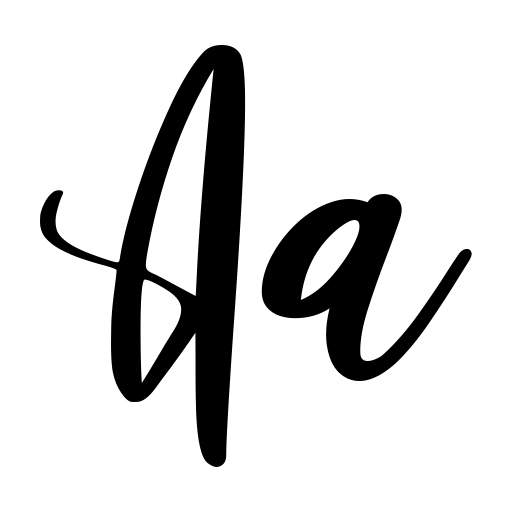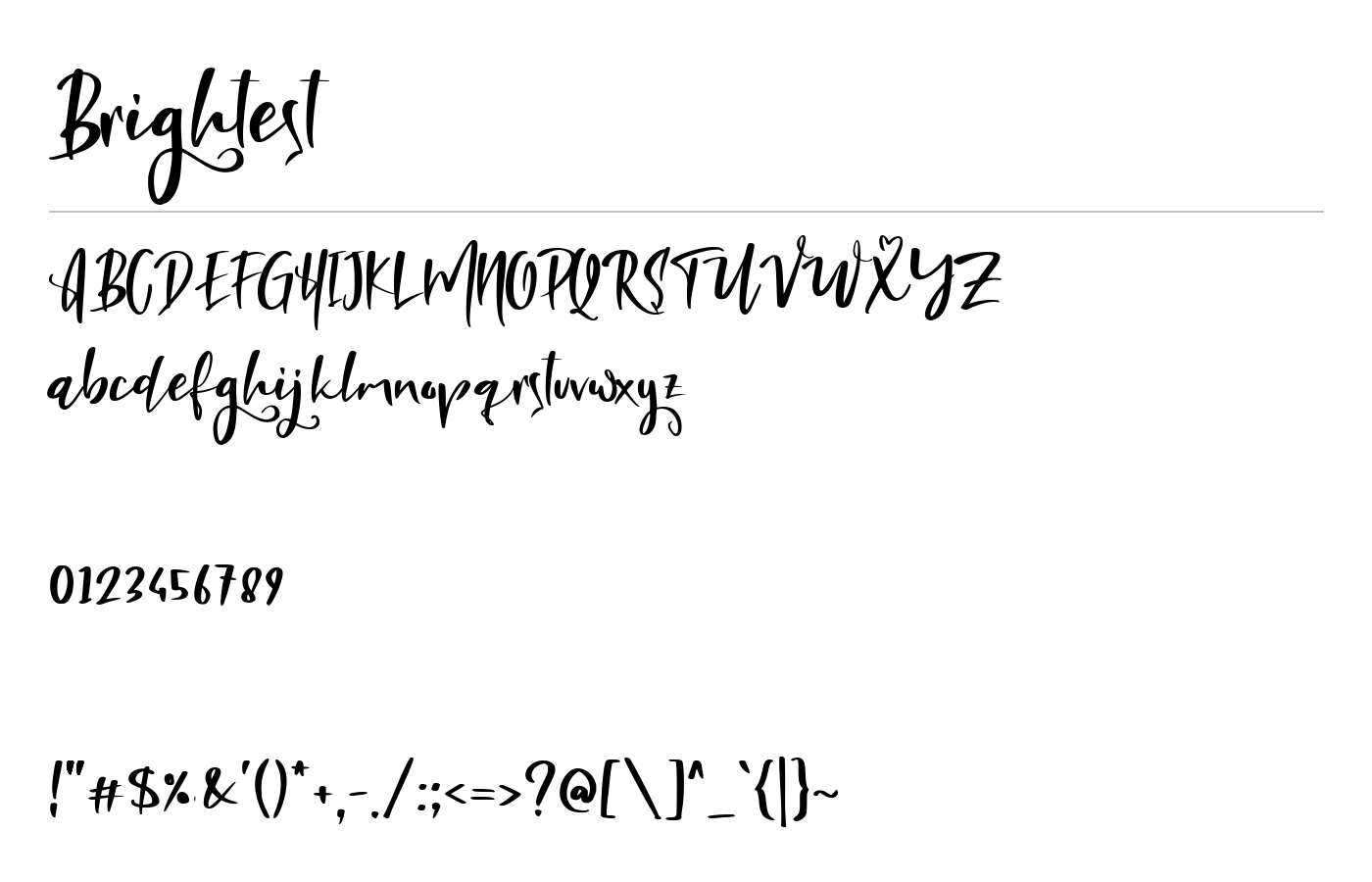
Brightest Font is a lively and modern script font featuring tall, narrow letterforms with playful swashes and unique flourishes that bring a handwritten charm. Its dynamic, casual style with medium contrast strokes makes it perfect for creative branding, invitations, and eye-catching headlines where a personal, energetic touch is desired. This font shines in designs that seek a friendly yet stylish vibe, balancing creativity and clarity.
Brightest Font
About Brightest Font
| Font family | Brightest Font |
| Designer | AldeDesign-Noftanti Studio 2020 (Collaborations) |